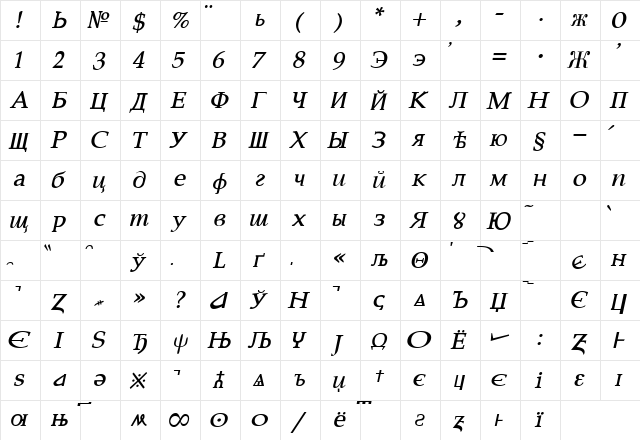
Constantin Italic Font Preview
Constantin Italic
Design Context for Constantin Typeface
Constantin is a composed and adaptable typeface that performs quietly and consistently across a wide range of design contexts. Its italic angle brings a sense of urgency and motion to the letterforms.
Pro Tip: Use Constantin for emphasis, pull quotes, and subheadings where its slanted energy can add rhythm to the layout.